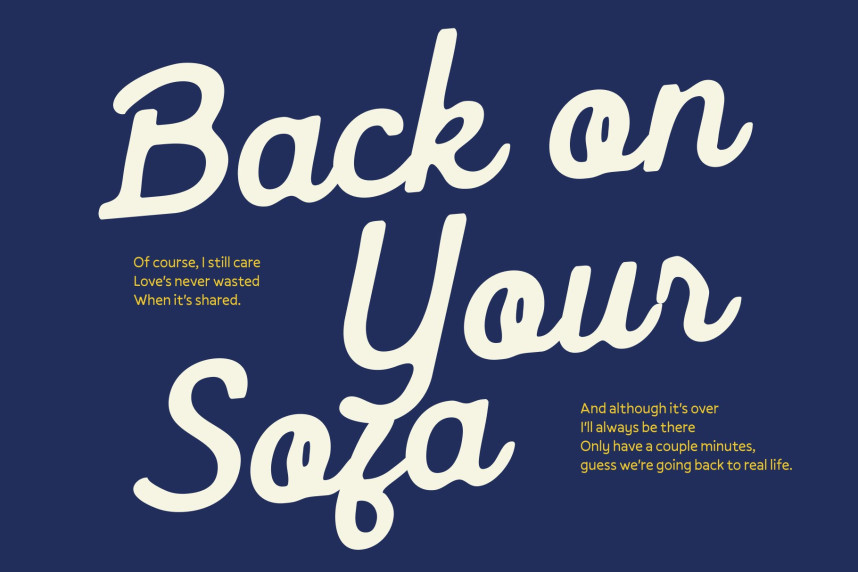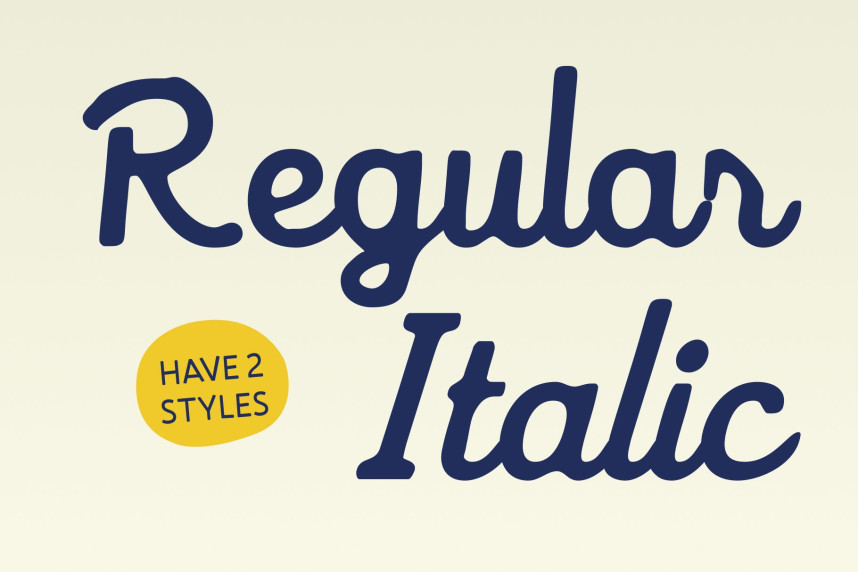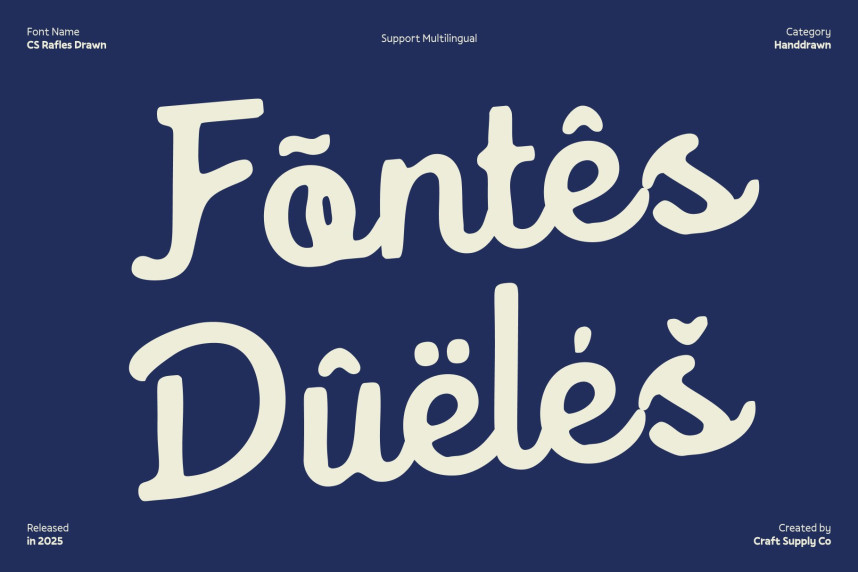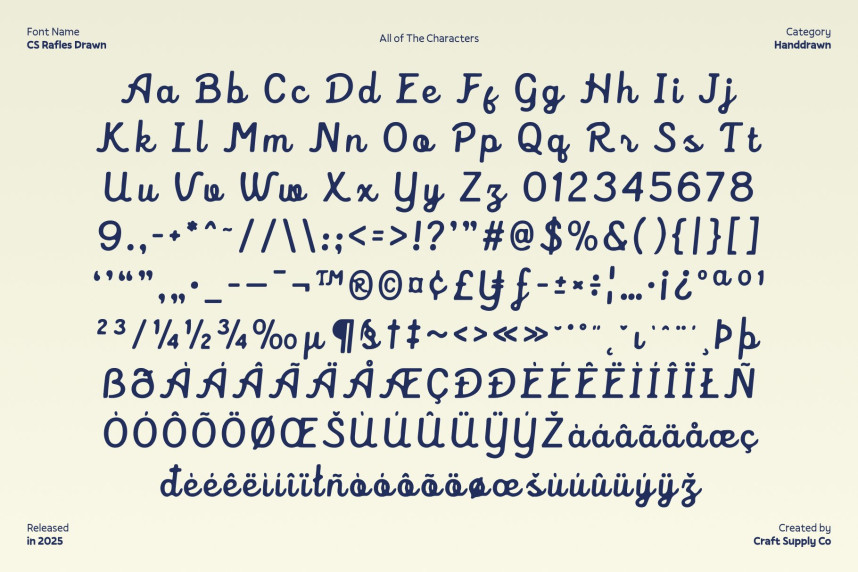
CS Rafles Drawn Font
CS Rafles Drawn Font – Elegant Script Font with Handcrafted Charm Graceful, Flowing, and Sophisticated. This is a modern script font that combines smooth, flowing cursive forms with a subtle hand-drawn texture. Each stroke is carefully crafted to evoke elegance and charm, merging the natural beauty of handwriting with a refined contemporary aesthetic. The result is a timeless, polished typeface that feels both sophisticated and approachable.